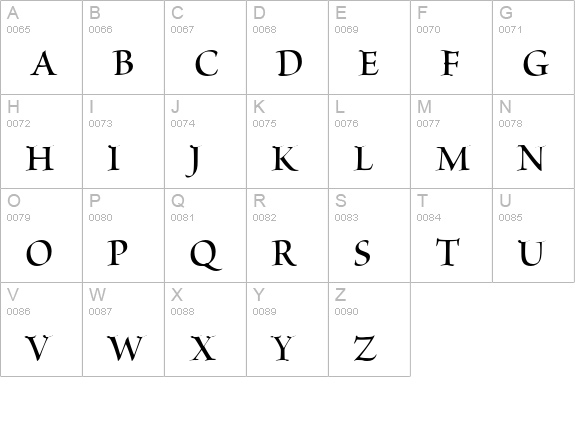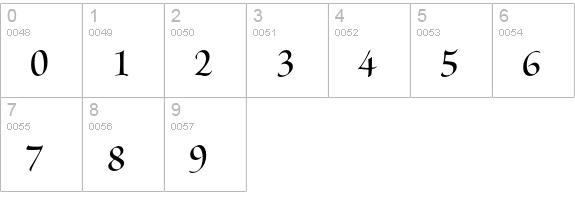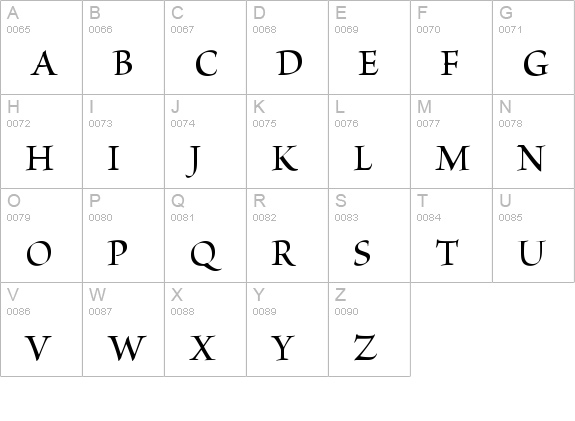
Brioso Pro Semibold Display is a sub-bold, structured variant in the Brioso typeface family \xE2\x80\x94 well suited to sub-headlines and emphasised passages.
Brioso Pro Semibold Display font is a striking and versatile typeface that exudes elegance and sophistication. With its bold yet refined appearance, this font is perfect for creating eye-catching headlines, titles, and logos that demand attention. The semi-bold weight adds a touch of strength and modernity to any design project, making it ideal for both print and digital applications. This font is not only visually appealing but also highly legible, ensuring that your message is effectively communicated to your audience. Whether you are designing a poster, website, or branding materials, Brioso Pro Semibold Display font will elevate your work to the next level. The best part? Brioso Pro Semibold Display font is available for free download at FontsMarket.com. Now you can access this premium font without breaking the bank, making it a valuable addition to your font library. Don't miss out on the opportunity to enhance your designs with the timeless beauty of Brioso Pro Semibold Display font.